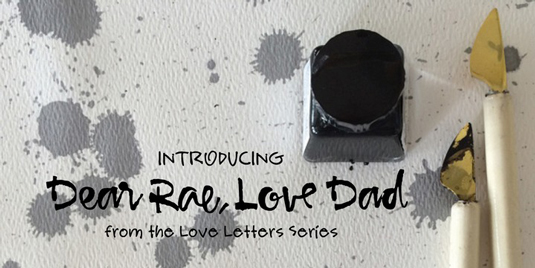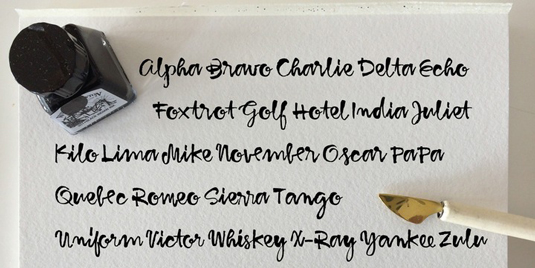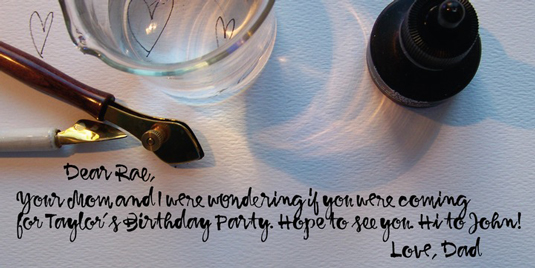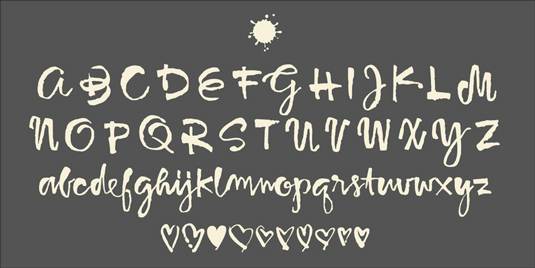
Font of the day: Dear Rae, Love Dad
Every day we showcase the best fonts on the web. Today it's Dear Rae, Love Dad by Rae Kaiser.
Dear Rae, Love Dad by Rae Kaiser
Today's typeface of choice is Dear Rae, Love Dad, a modern calligraphy font drawn by Rae Kaiser, who created it using using ink and a folded nib dip pen on rough watercolor paper. "It is upright, dramatic, and personal," Kaiser comments. "It's named Dear Rae, Love Dad because who wouldn't like to get a letter signed, Love Dad."